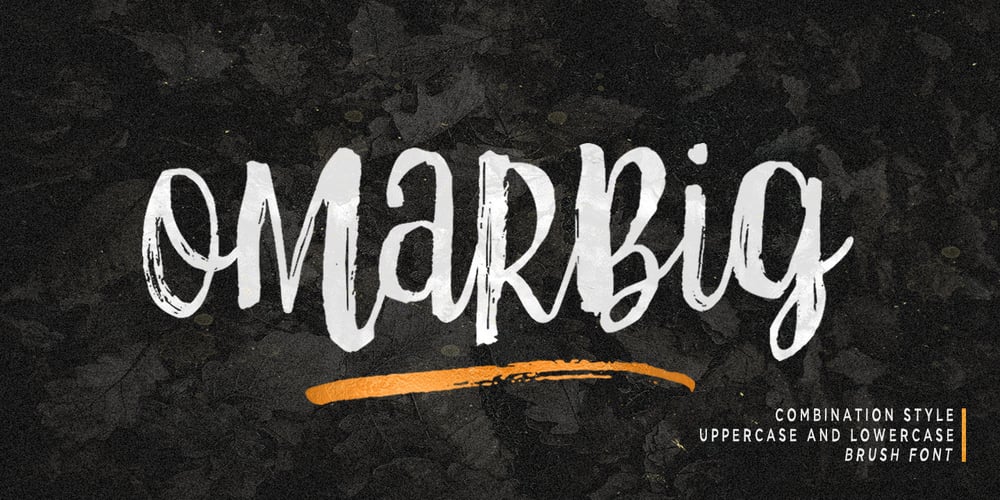
Omarbig
Omarbig font
Omarbig Font Family was designed by Mauli Zari and published by Dhan Studio. Omarbig contains 2 styles and family package options. Omarbig is a beautiful hand-painted font that looks more natural, fun and combines a mixture of small and large letters, making it look attractive and unique. This fonts can be used for various purposes such as headings, signature, logos, wedding invitations, t-shirts, letterhead, signage, labels, news, posters, badges etc.